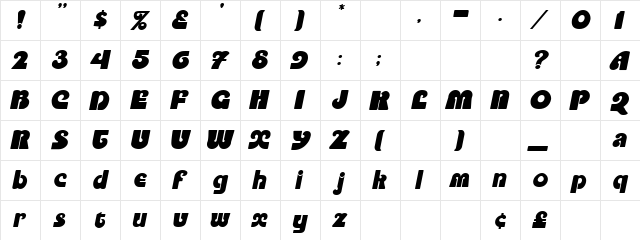
Saltire Oblique
Design Context for Saltire Typeface
Saltire is a composed and adaptable typeface that performs quietly and consistently across a wide range of design contexts. Its italic angle brings a sense of urgency and motion to the letterforms.
Pro Tip: Try Saltire for annotation and caption copy alongside an upright companion — the contrast in angle creates a dynamic but ordered typographic system.